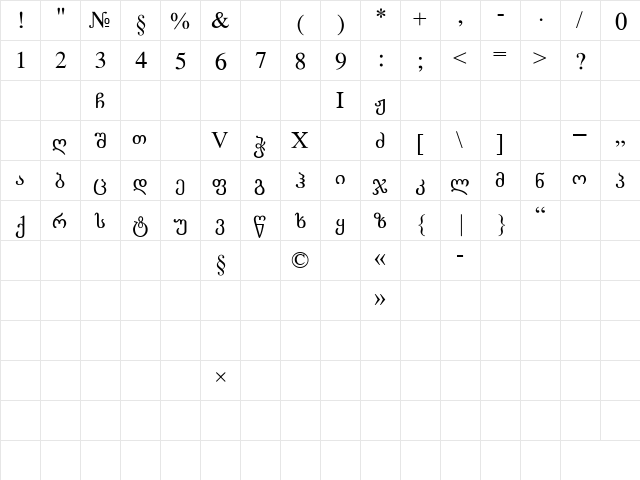
GEO-LitNusx Regular
Design Context for GEO-LitNusx Typeface
GEO-LitNusx is a composed and adaptable typeface that performs quietly and consistently across a wide range of design contexts.